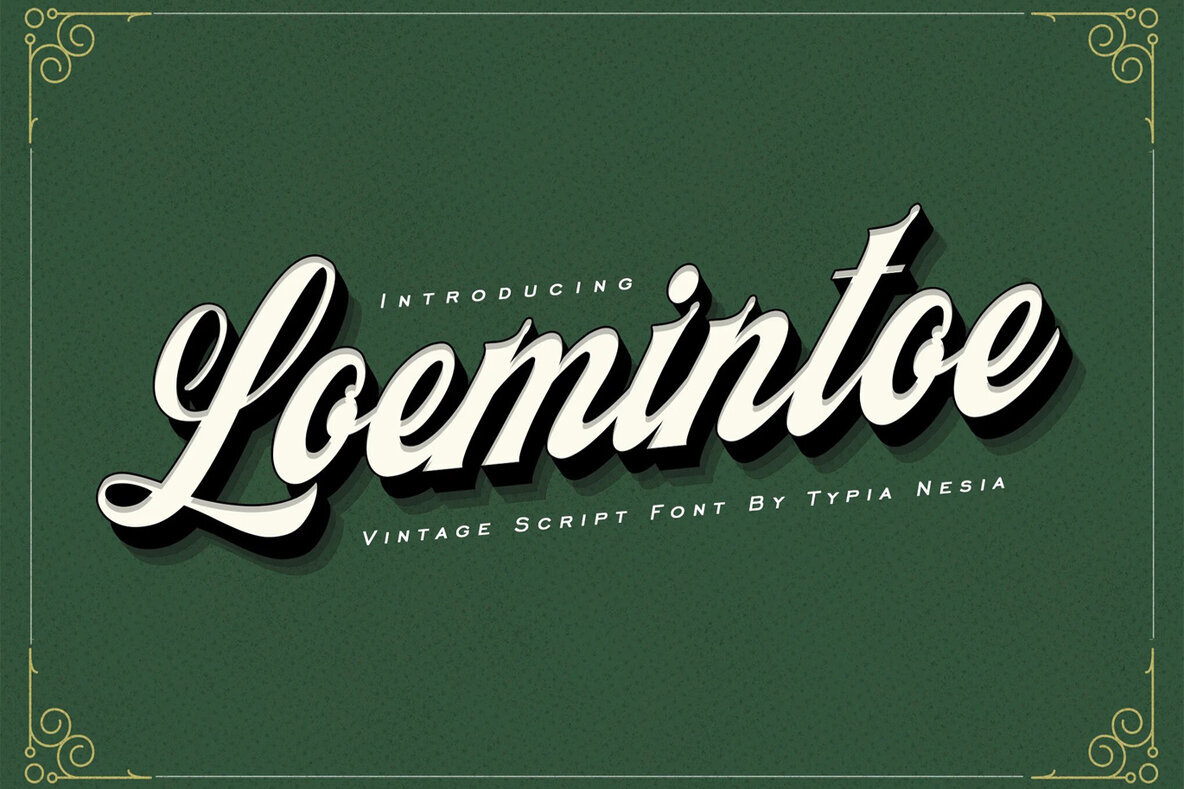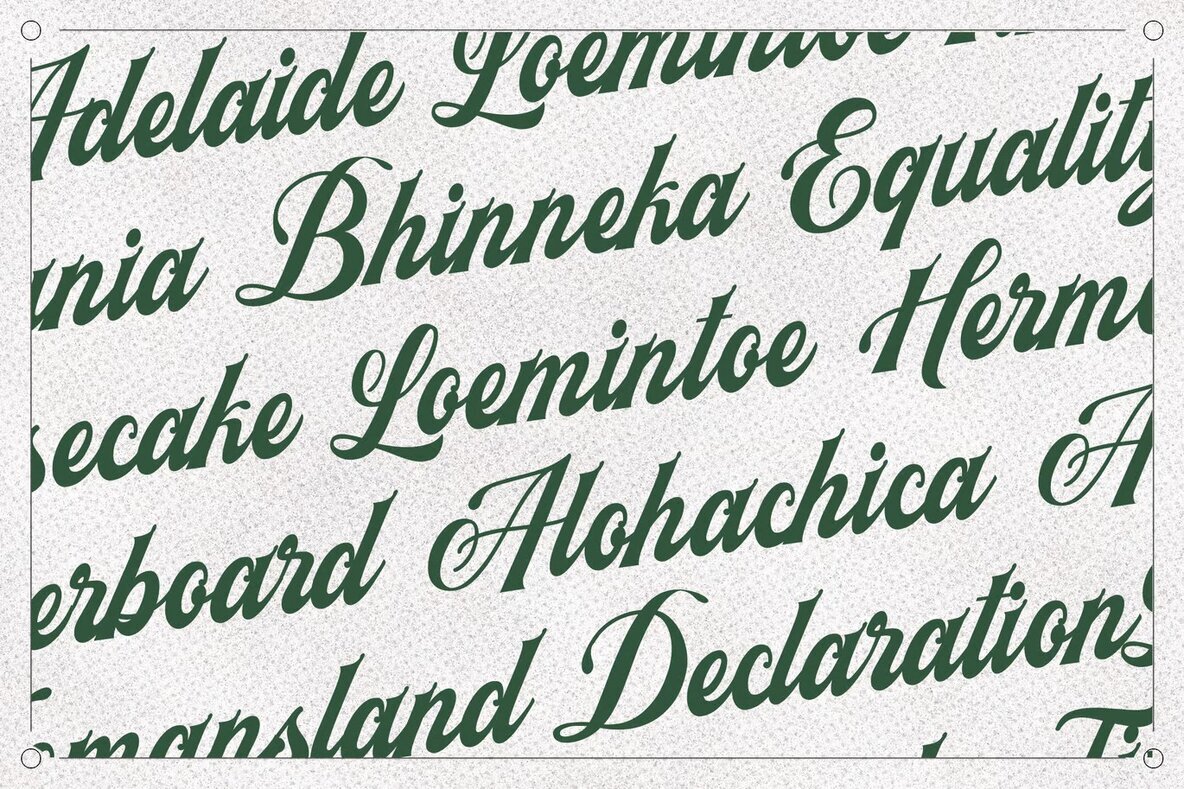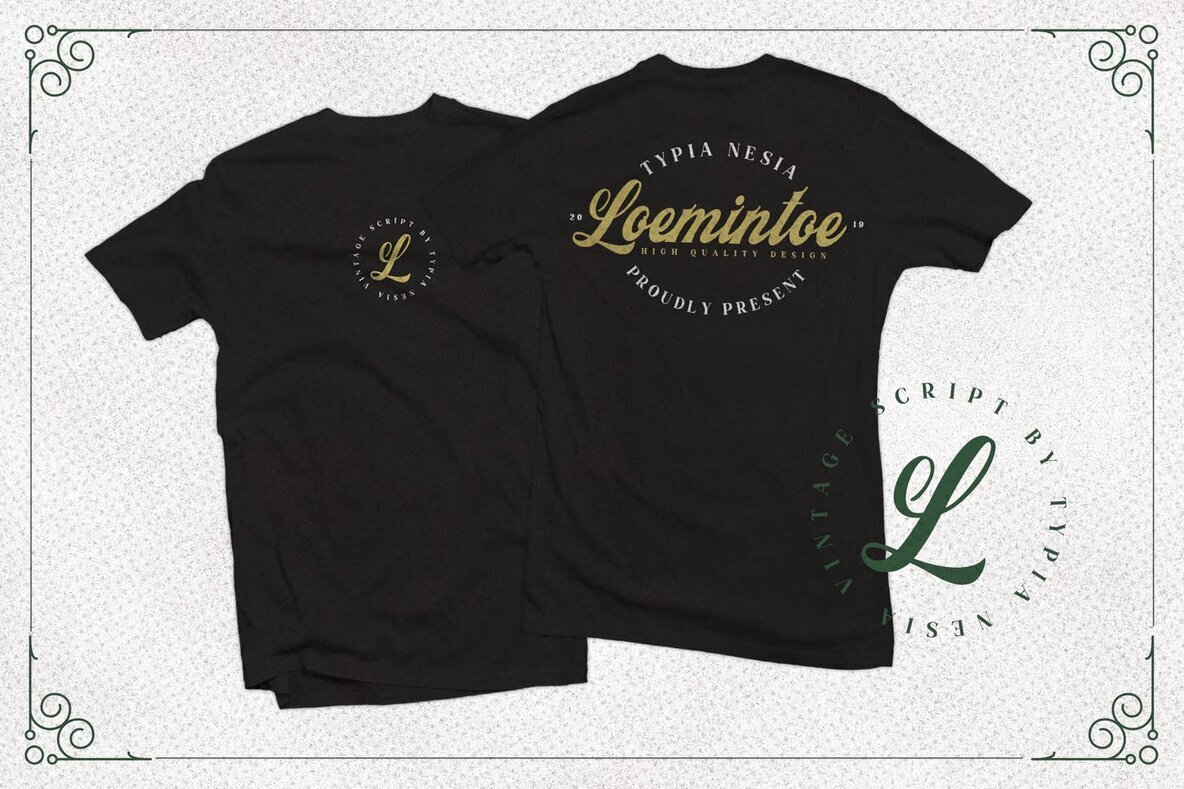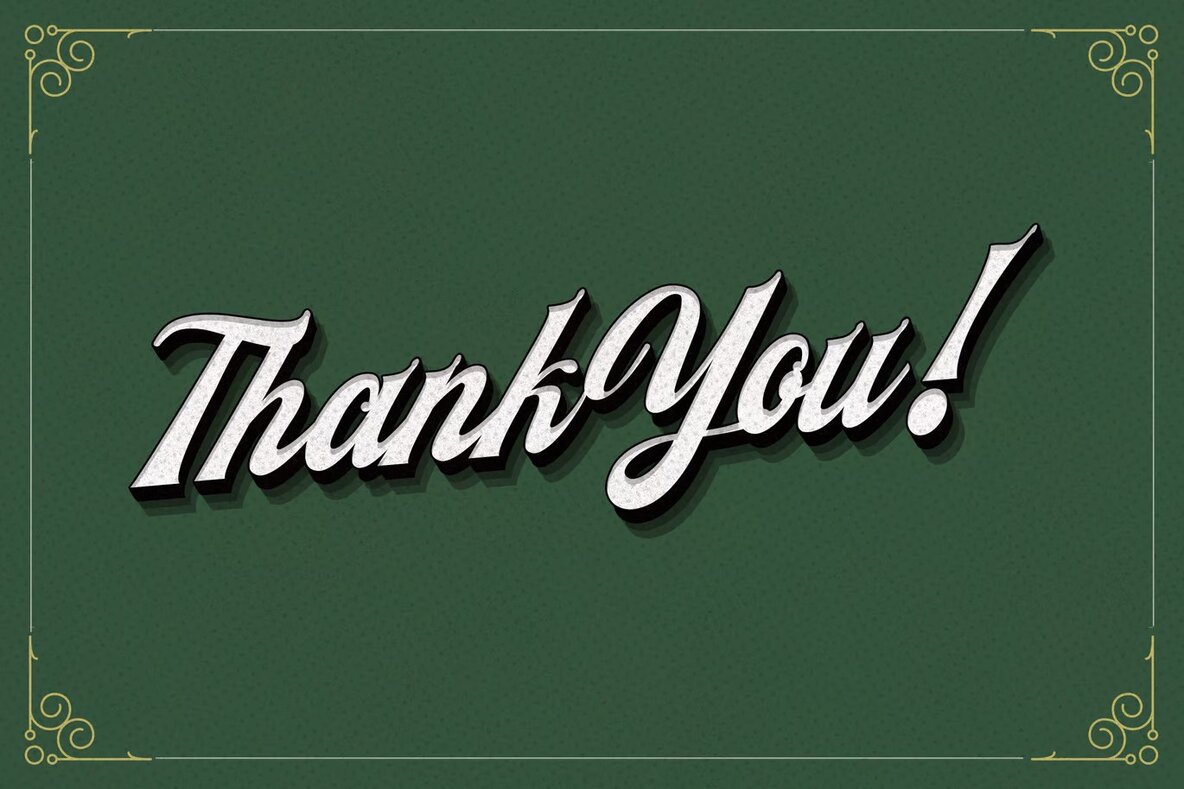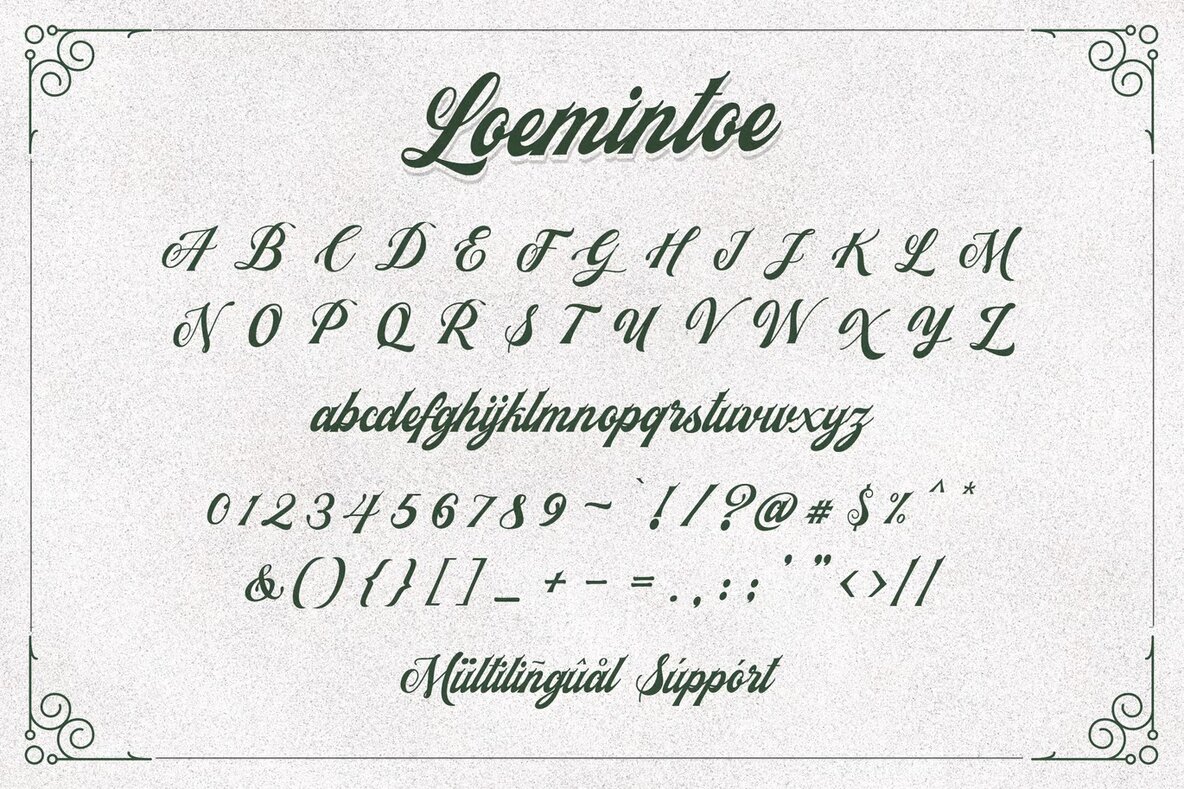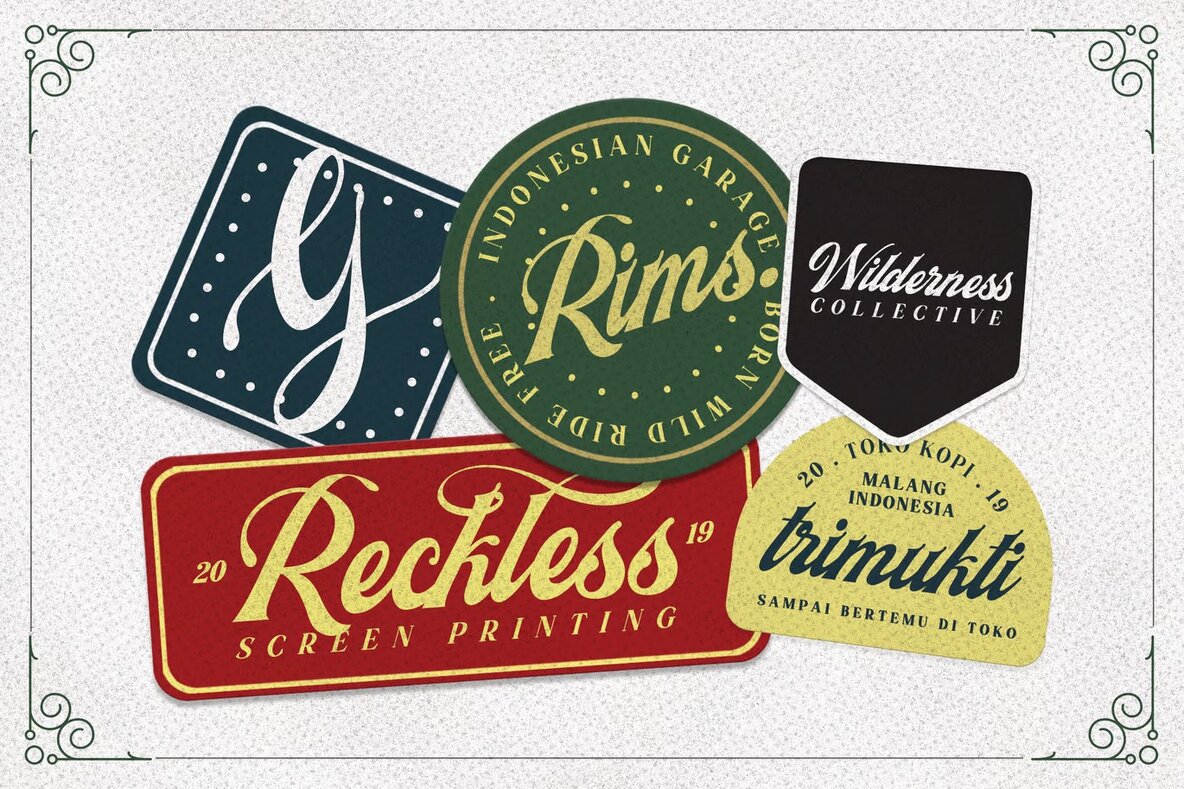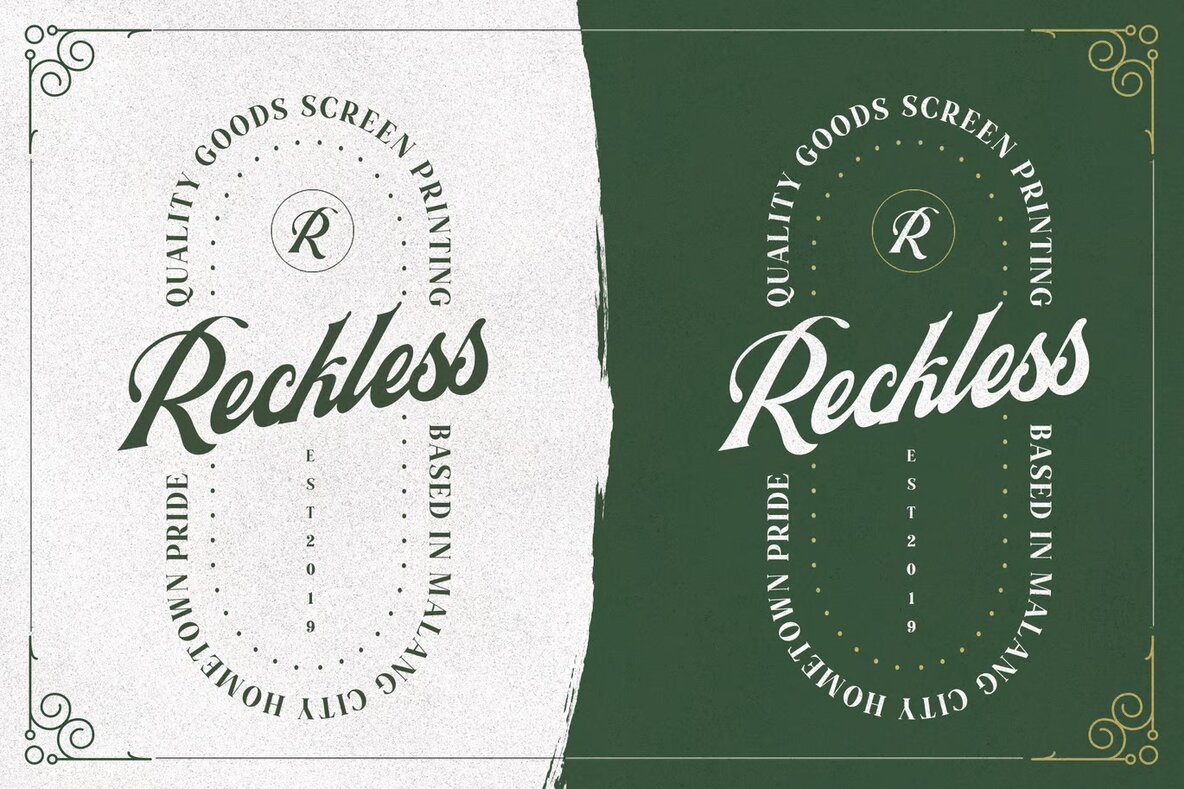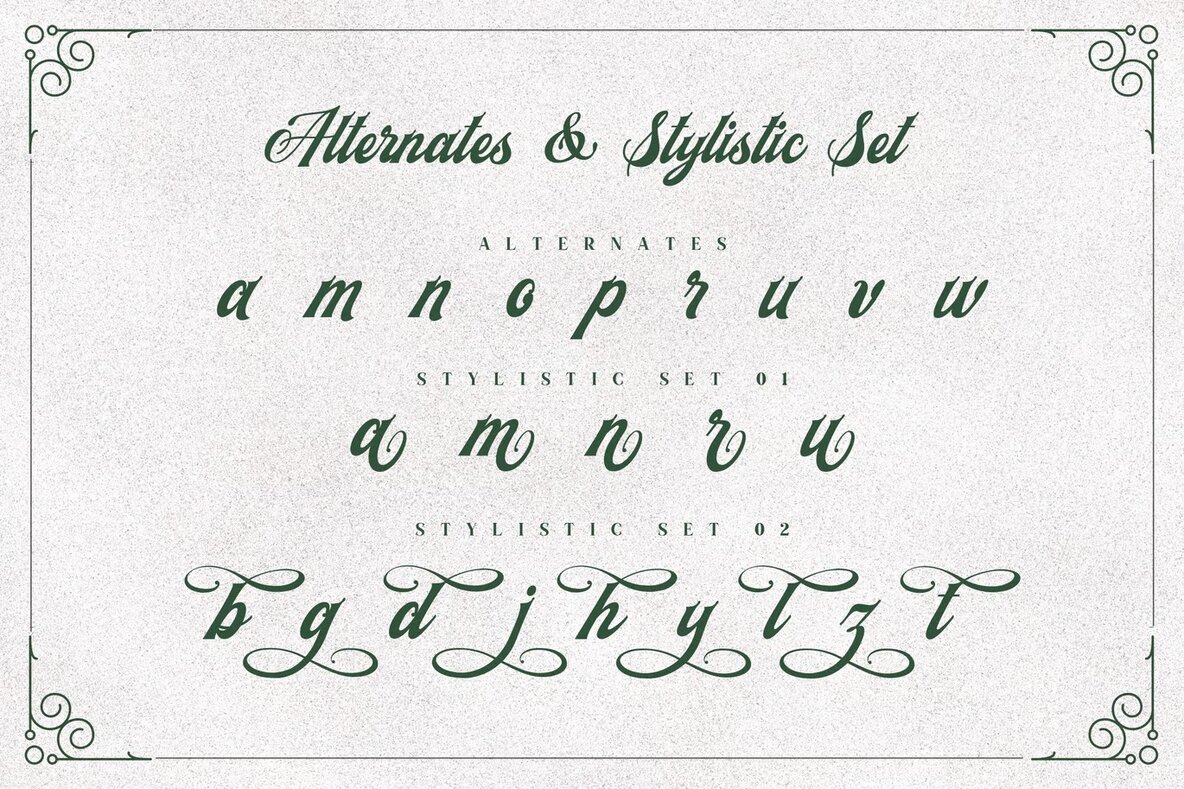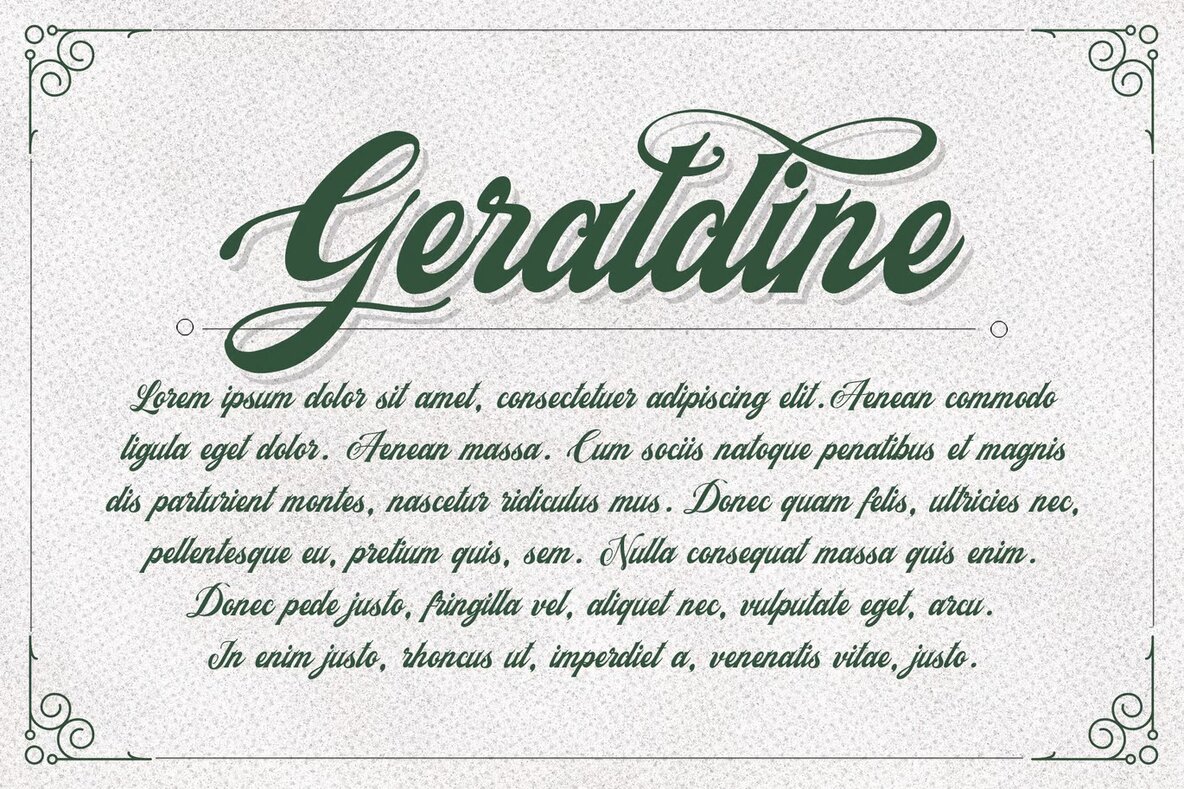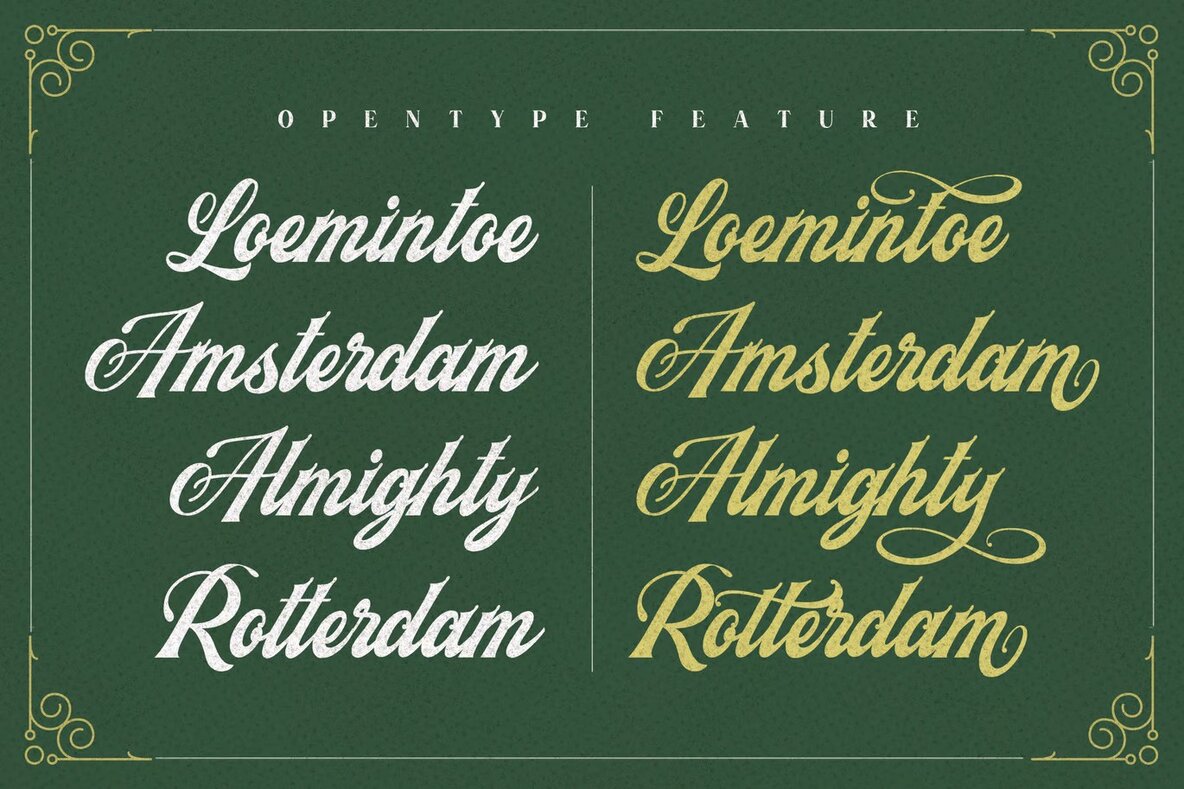
Loemintoe Font
Loemintoe
Loemintoe is a vintage classic script font inspired by the charm of vintage sign painting and posters. Its effortless flow and classic style make it a versatile choice for a variety of projects, including t-shirts, posters, cards, branding, art quotes, and book or cover titles.
This font includes a comprehensive set of upper and lowercase standard characters, punctuation, and numerals. Loemintoe also offers diverse OpenType features such as standard ligatures, stylistic alternates, and stylistic sets. Additionally, it provides multilingual support, making it adaptable for international design needs.